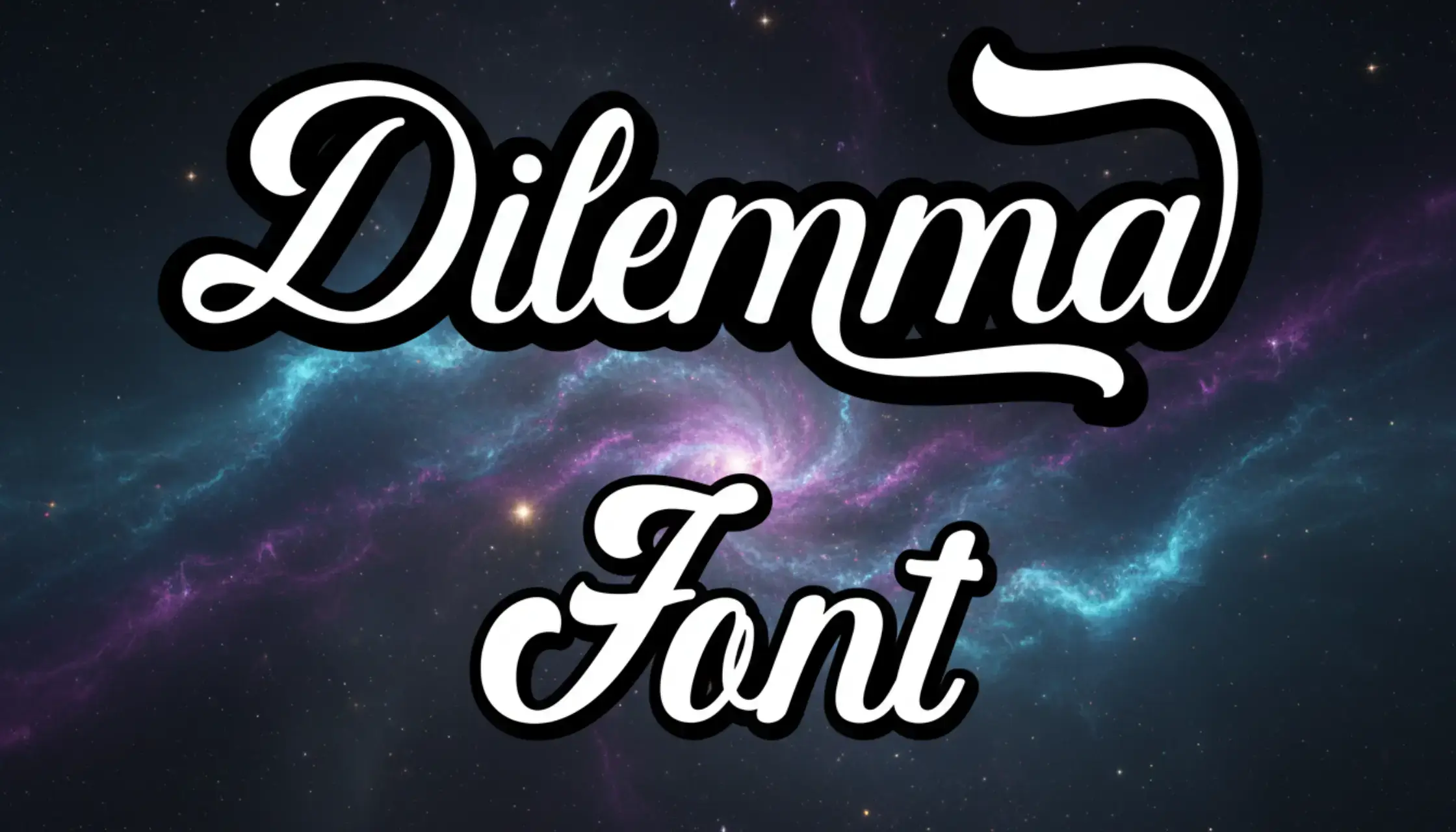
Dilemma Font
Dilemma is a script font created by JunCreative (Muhamad Junaid) @mjart96. The letters have the smooth movement of real pen lettering, which is why even a single name looks special in it. It's a free download, and you can try it with your own text in the preview above first.
What You Can Type With Dilemma
With complete upper and lowercase letters and all ten digits, Dilemma is ready for real wording, not just a single headline. Common punctuation such as &, !, ? and @ is included as well. It also has the accented letters you need for Spanish, French, German, Portuguese and Italian.
Where Dilemma Works Best
Designers usually reach for fonts like Dilemma when they're making wedding invitations, logos and signature-style headings. Script fonts read best in short bursts, so keep it to names, titles and one-line quotes. Skip all caps: script capitals are drawn to start a word, not to fill one.
Does Dilemma support accented letters?
Yes. Dilemma includes the accented letters needed for Spanish, French, German, Portuguese and Italian, so it works for more than just English.